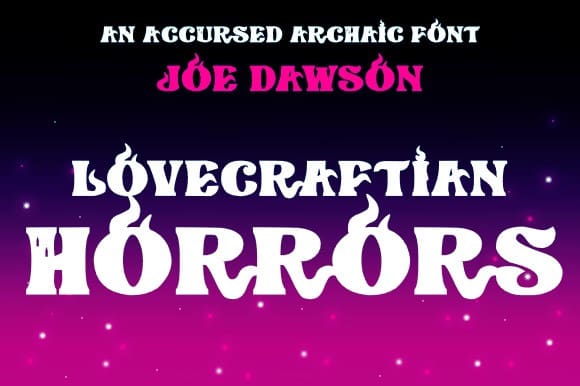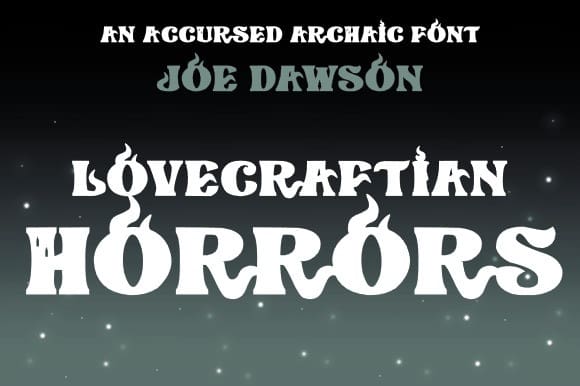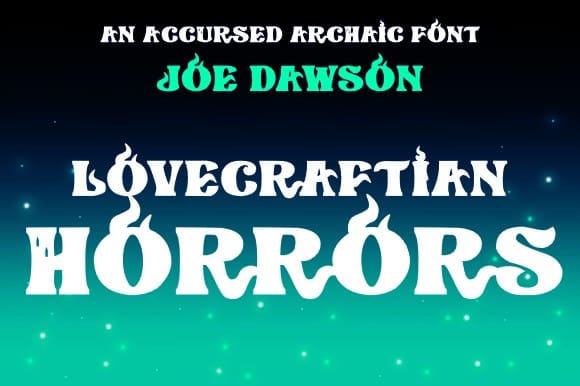
Lovecraftian Horrors Font
Lovecraftian Horrors Font, crafted with eldritch elegance, this typeface lets you conjure cosmic horror on book covers, movie posters, and digital designs.